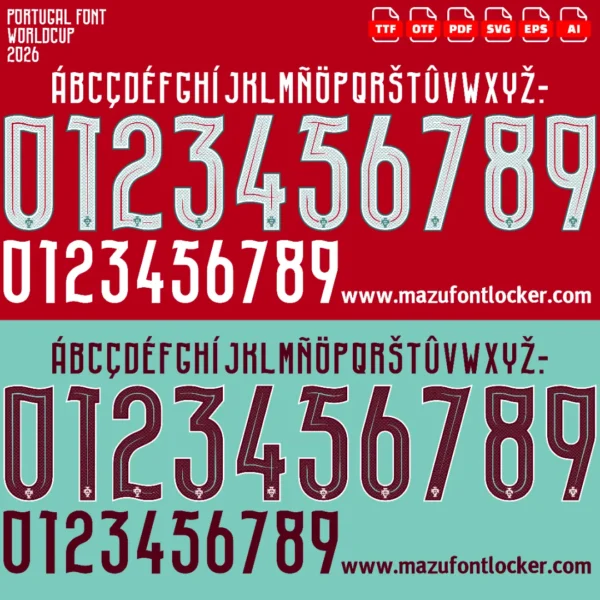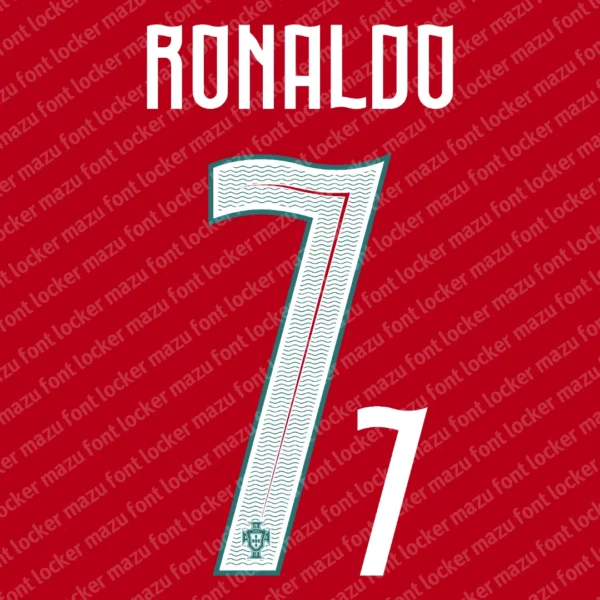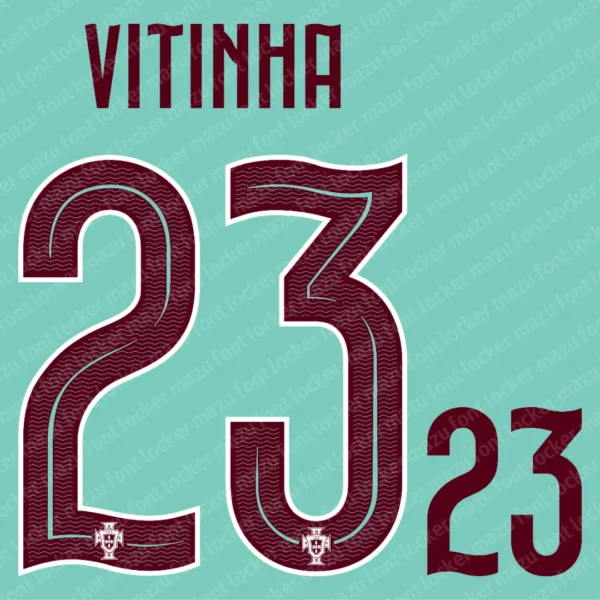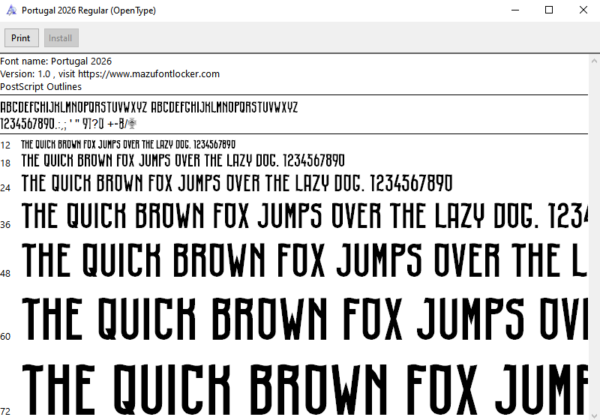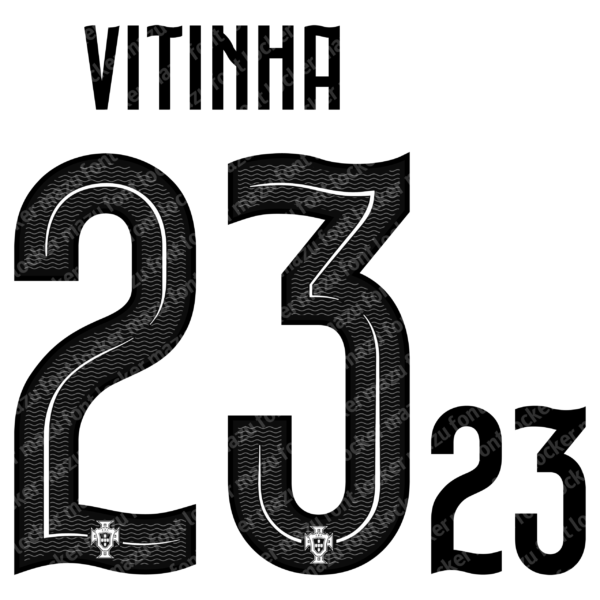
Portugal World Cup 2026 Font Vector – Glorious Unstoppable Seleção Masterpiece
This premium font captures the commanding, majestic war-machine lettering that embodies the unstoppable Seleção spirit — delivering raw Portuguese fire, explosive CR7 passion, iron-clad resilience, and legendary warrior grit that shook the entire football world.
Portugal World Cup 2026 Font Vector – Authentic Seleção Typeface
The Portugal World Cup 2026 Font Vector is a premium typeface that accurately recreates the official match lettering worn by the Portugal national team during the 2026 FIFA World Cup campaign. This high-quality vector font kit captures the bold, elegant, and dynamic typography that represents the pride, passion, and rich football heritage of the Seleção.
This font stands out because of its sharp vector precision and strong national identity. Every letter and number is crafted to match the exact style used on the players’ shirts during the 2026 World Cup campaign. Whether you are making realistic kit templates or exciting Seleção content, the Portugal World Cup 2026 Font Vector gives your designs that authentic Portuguese look.
The letterforms in the Portugal World Cup 2026 Font Vector are tall, bold, and highly readable. The strokes have a strong, clean weight with excellent edge definition that looks powerful on the back of jerseys while maintaining classic European elegance and modern strength.
- Full uppercase A–Z and numbers 0–9 in authentic Portugal World Cup 2026 style
- Multilingual Latin character support including diacritics
- Includes the exact crest glyph placement used under player numbers